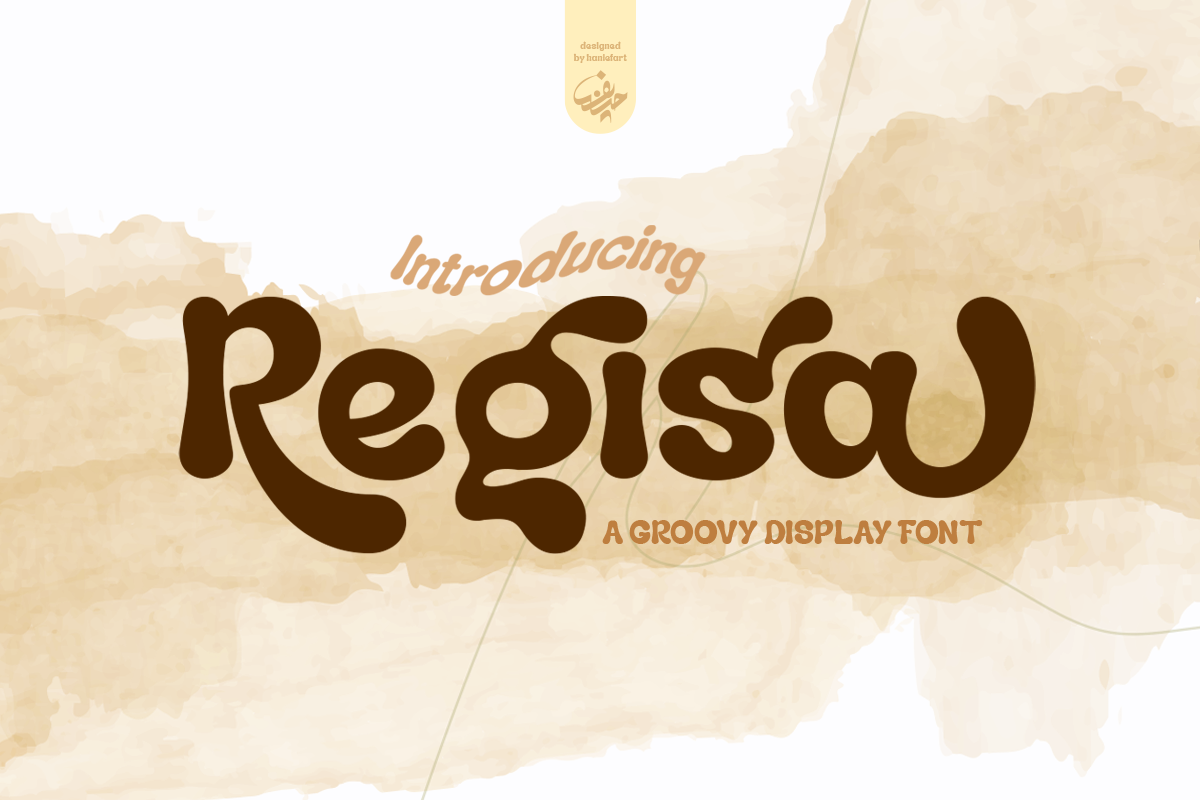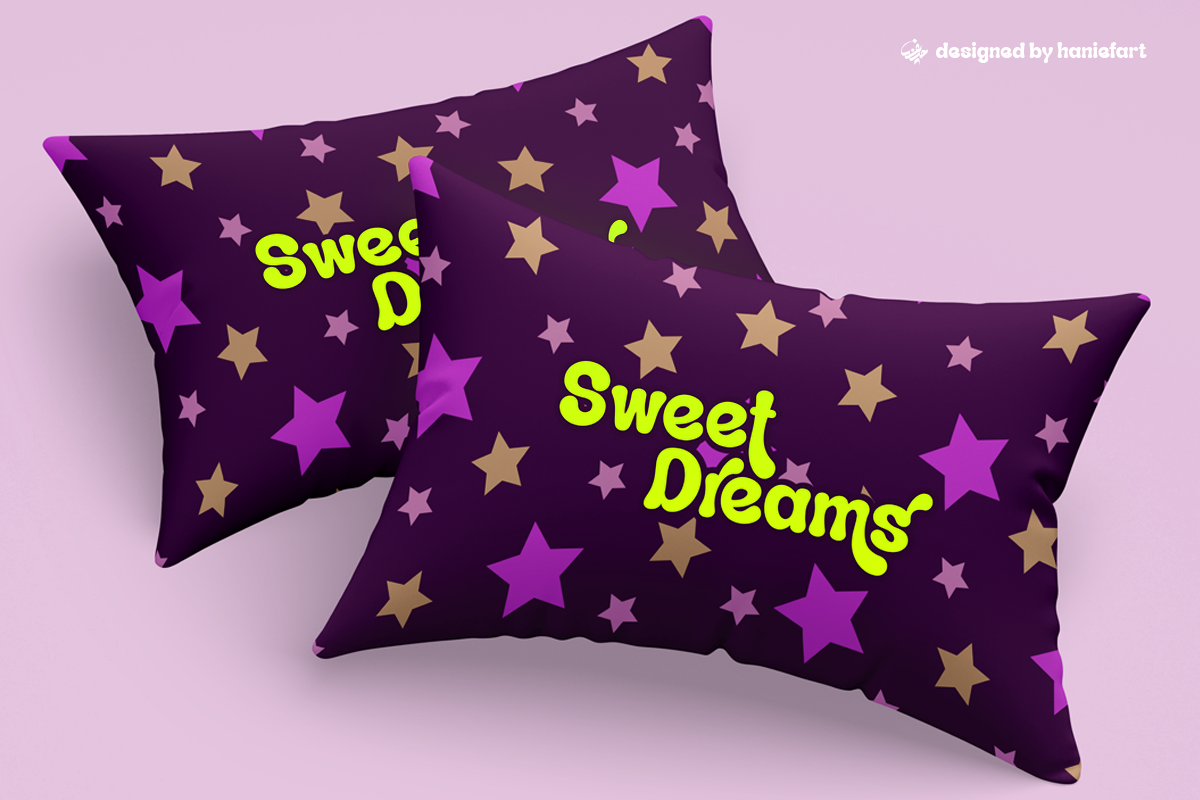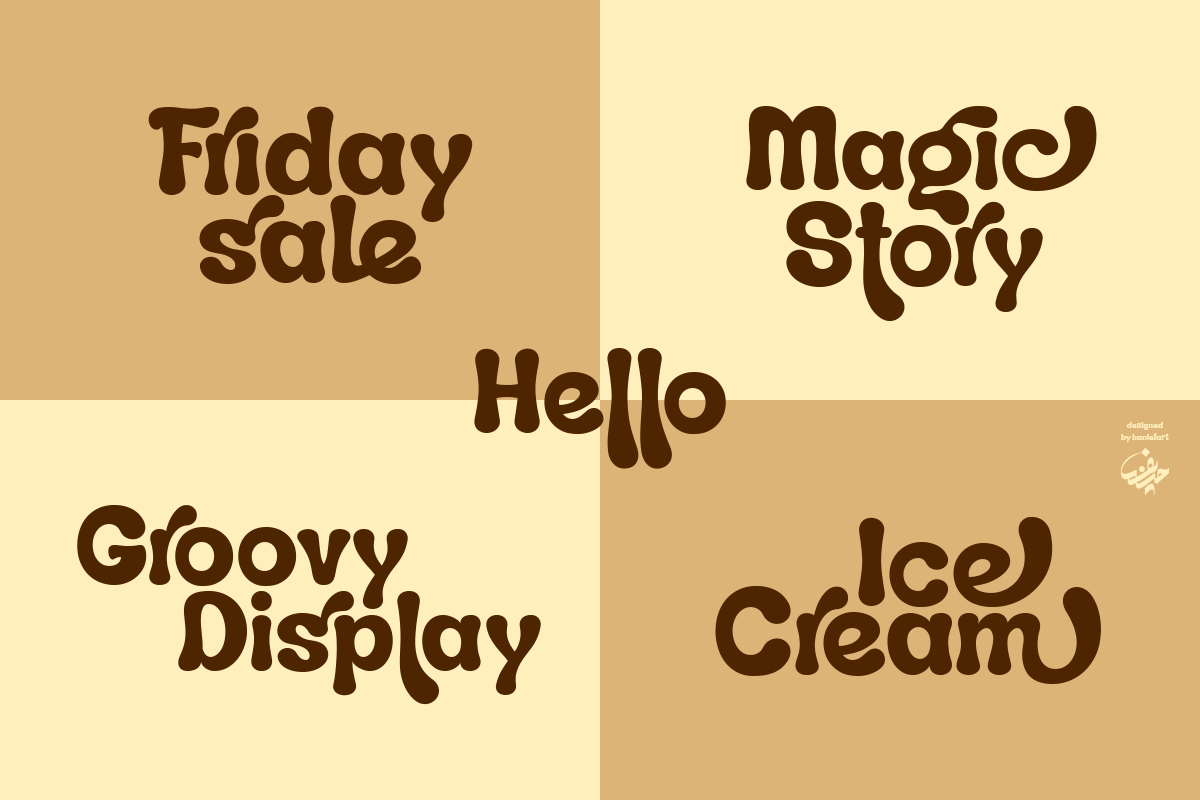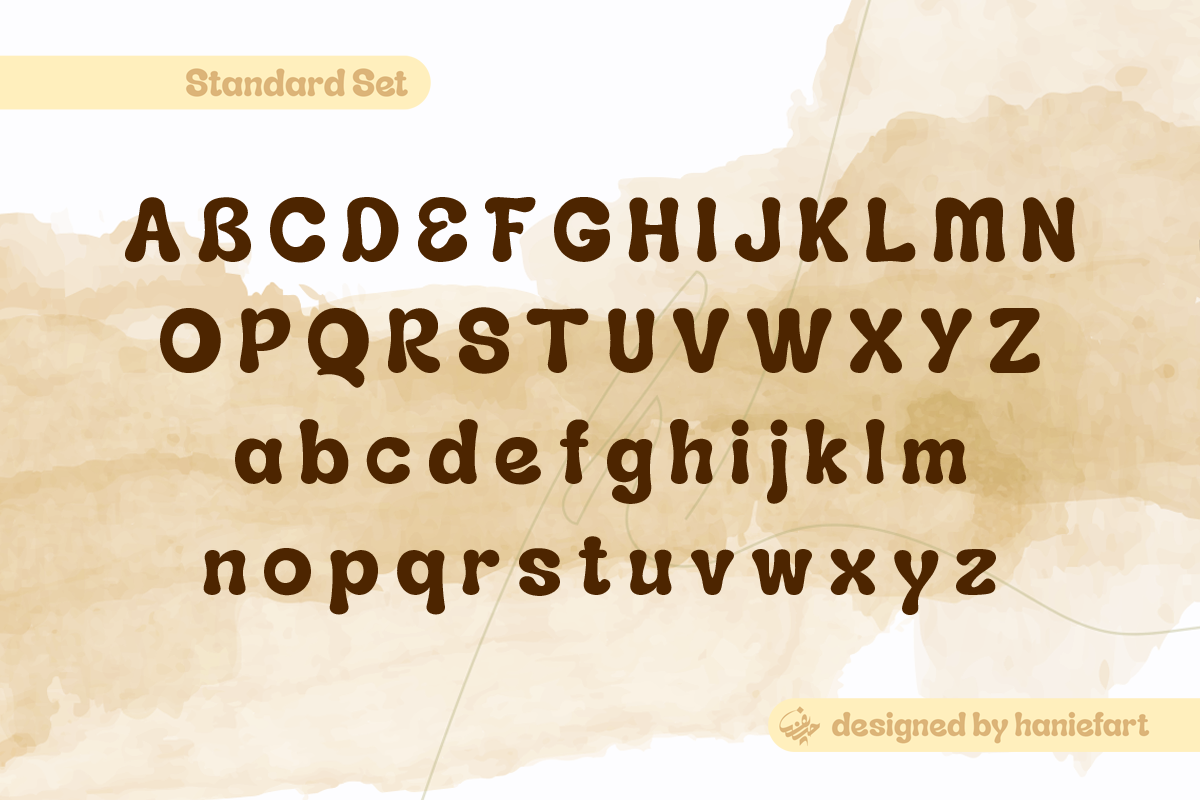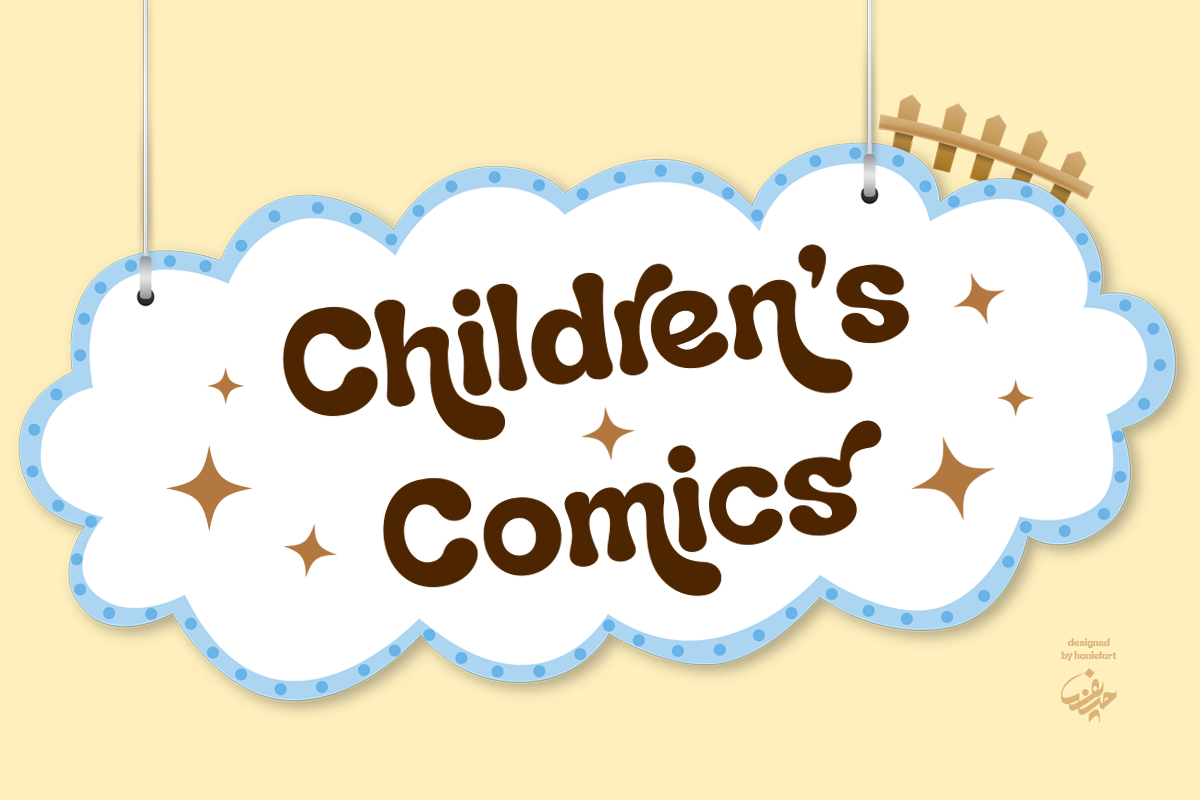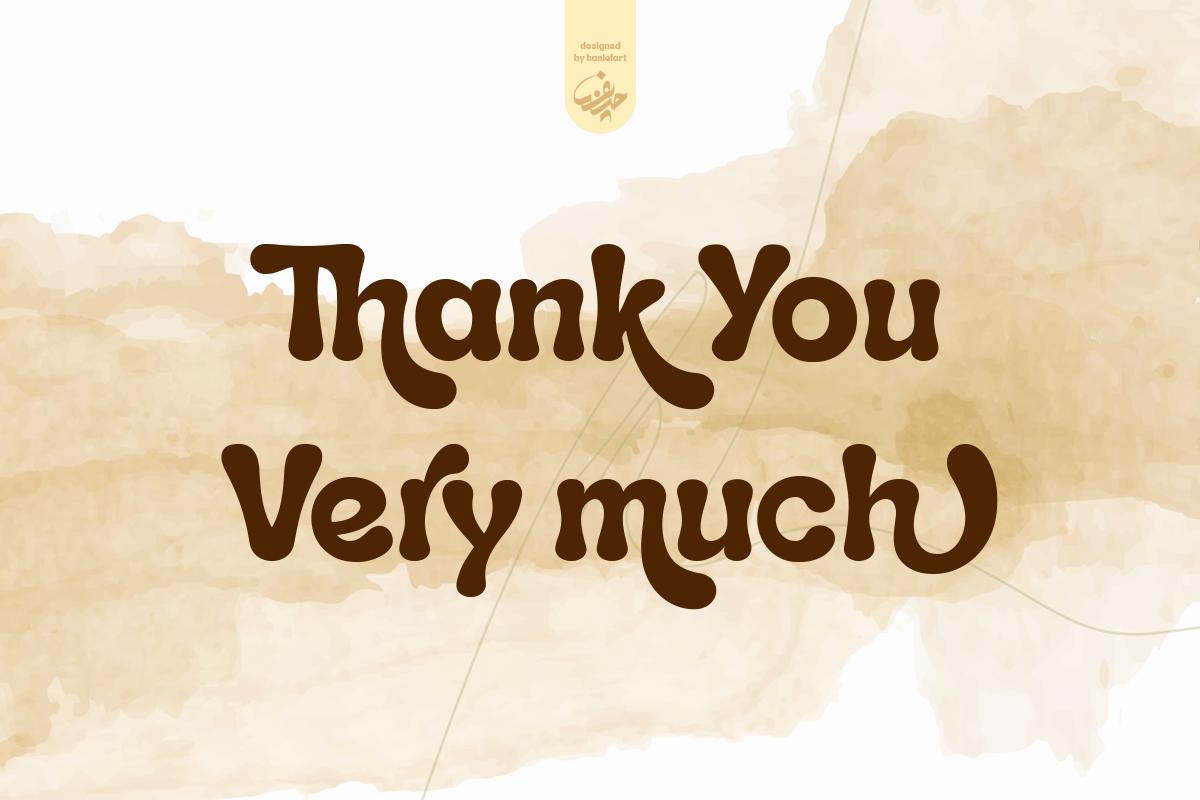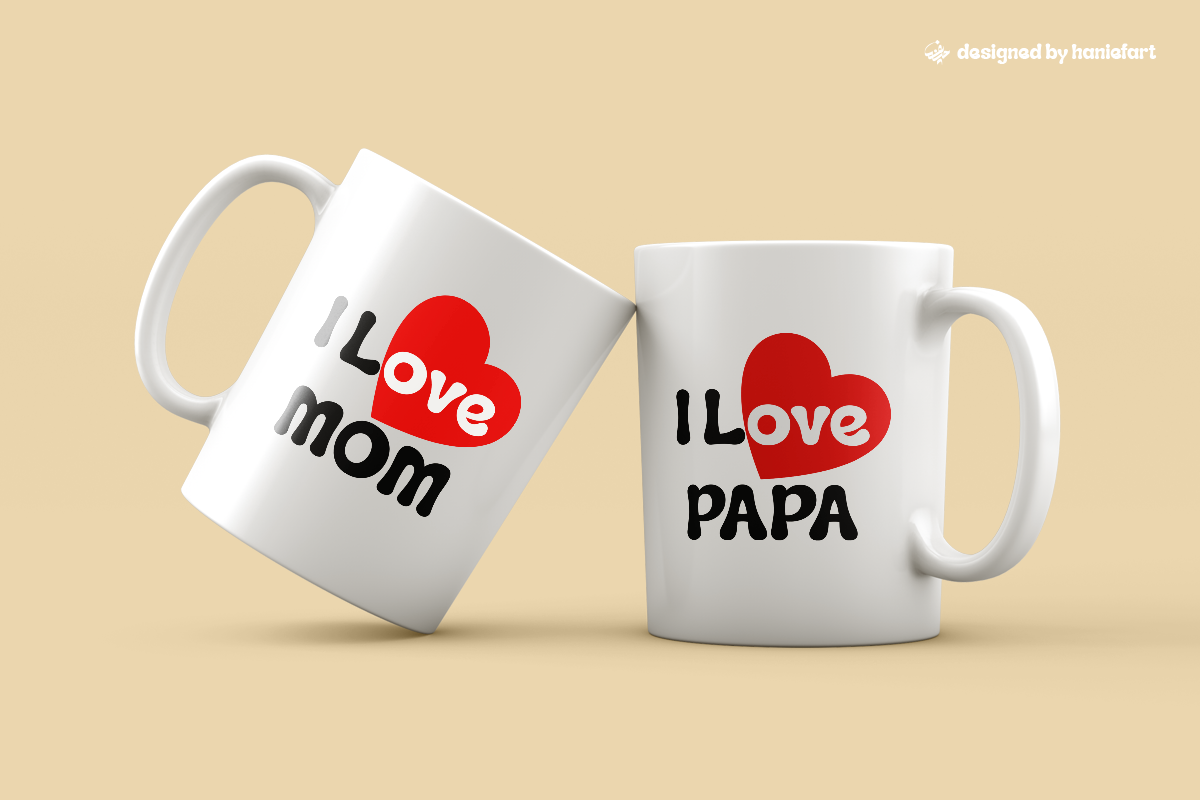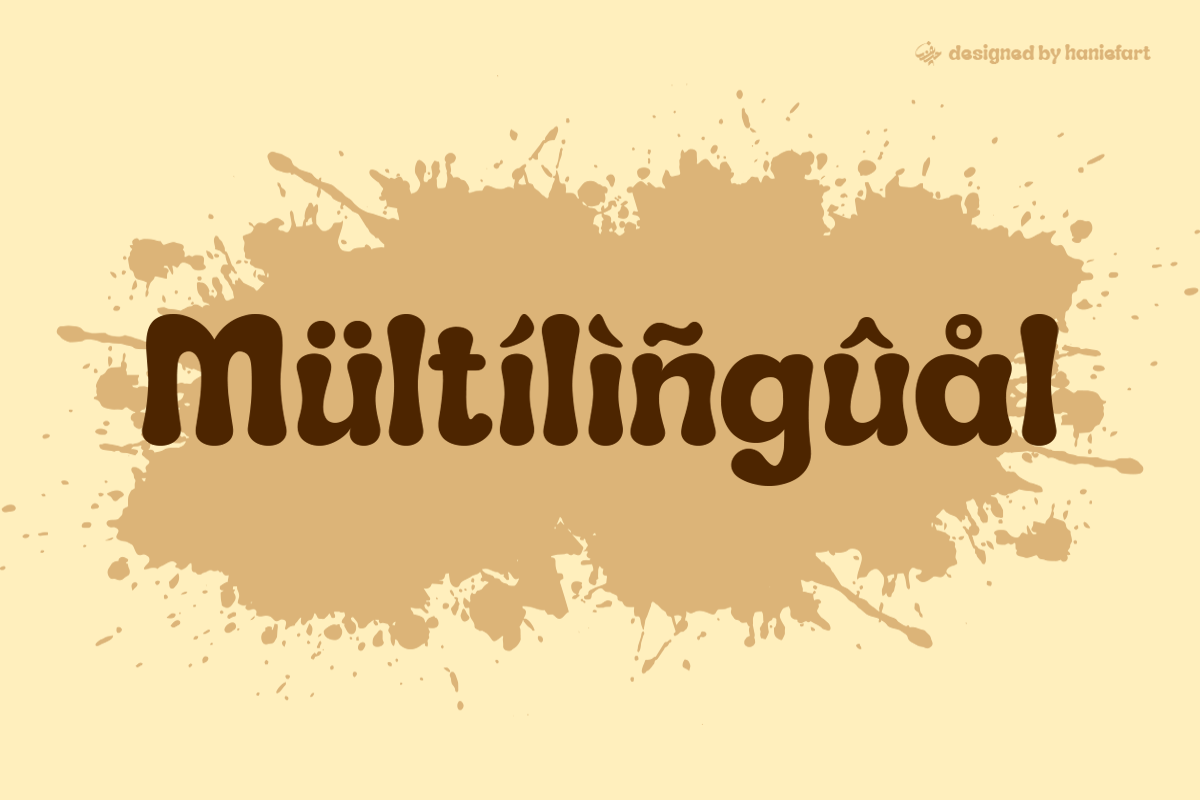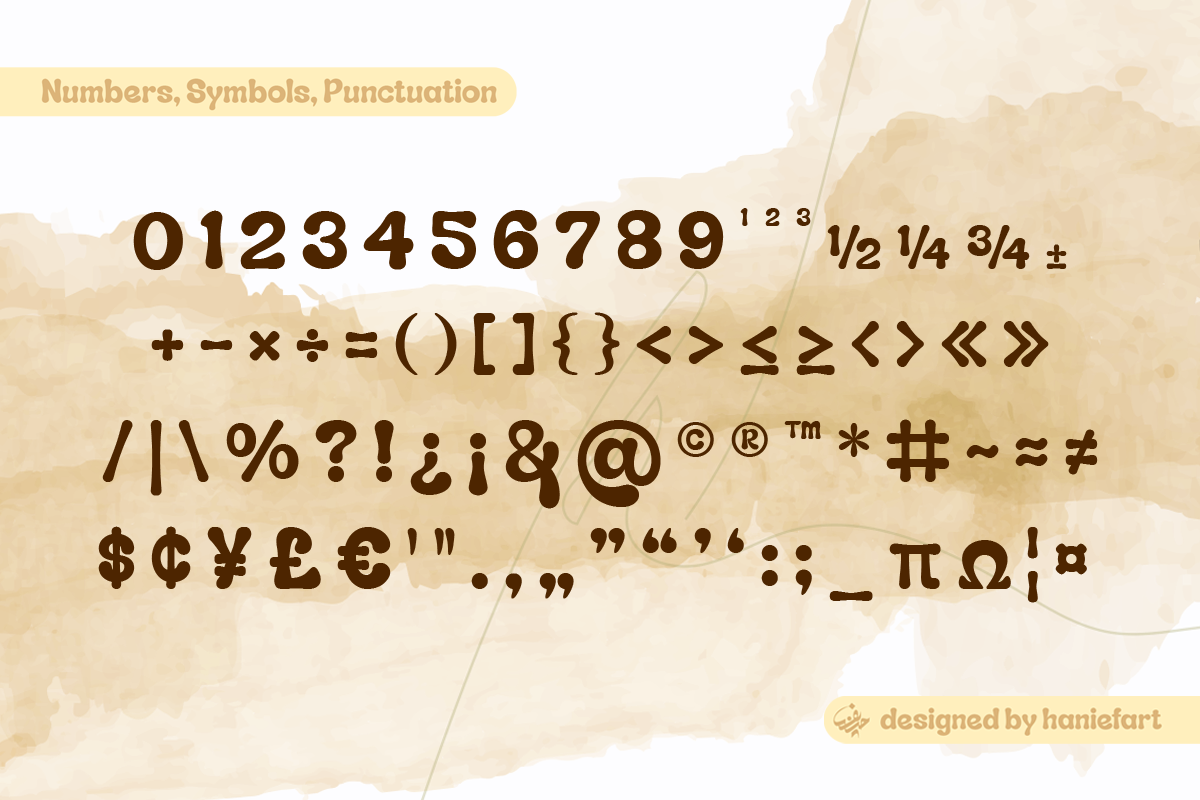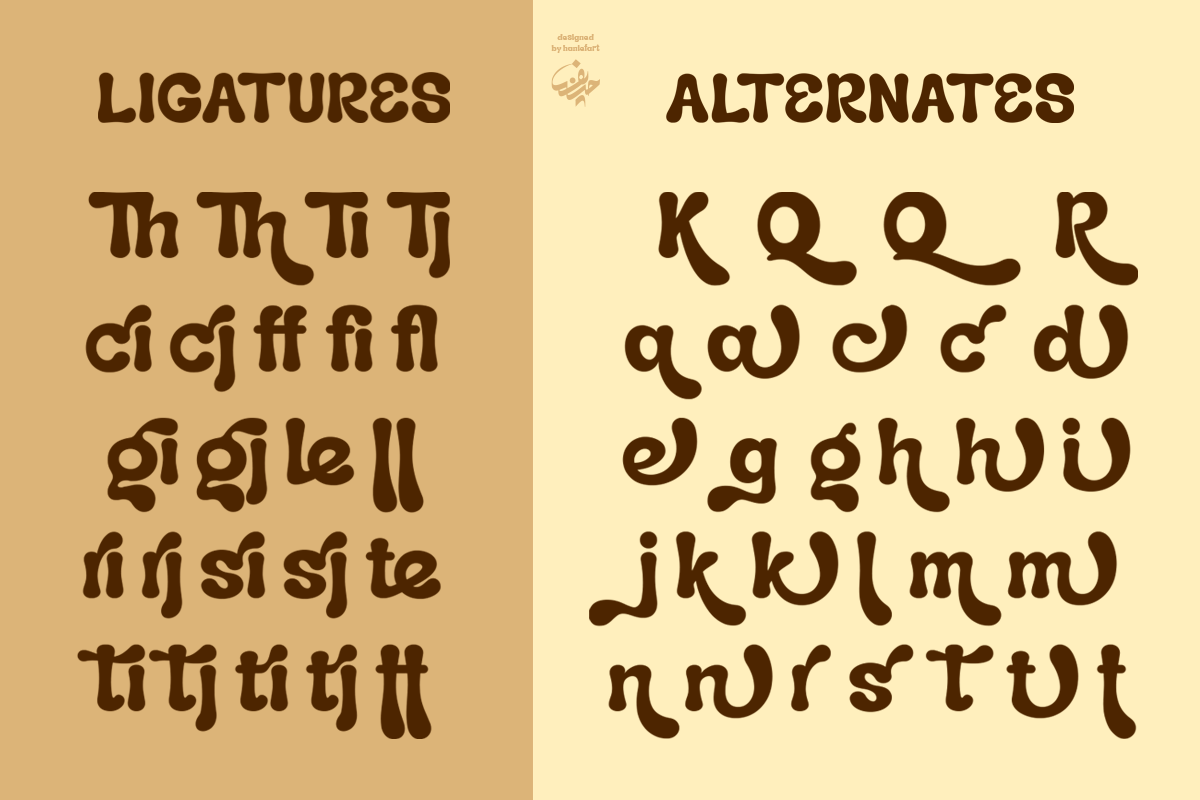
Regisa - Groovy Display Font
Regisa is a fun, flowing, and cool groovy display font. It is suitable for brands, magazines, comics, T-shirts, banners, and many more!